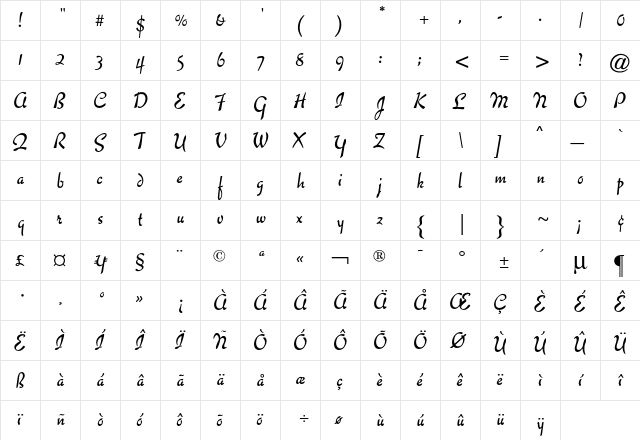
Chaplin CG Regular
Design Context for Chaplin CG Typeface
Chaplin CG is a composed and adaptable typeface that performs quietly and consistently across a wide range of design contexts.
Pro Tip: Use Chaplin CG in both headline and body roles to test its range before committing to a single application.